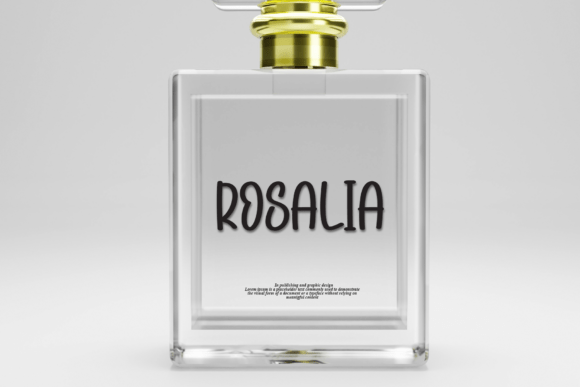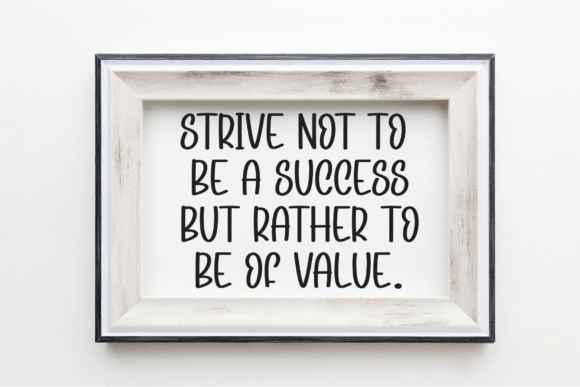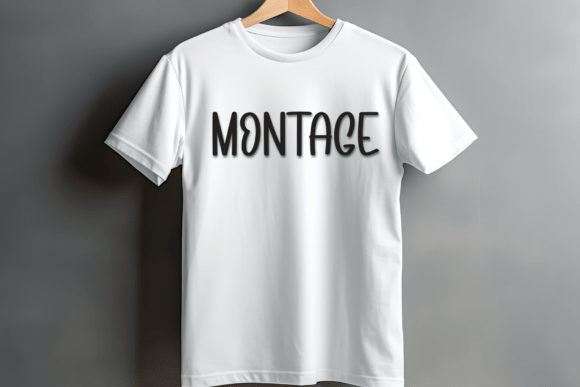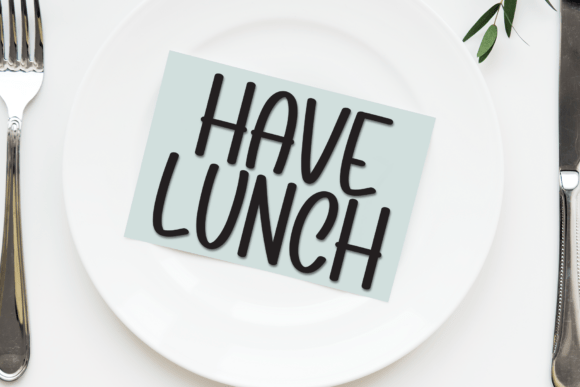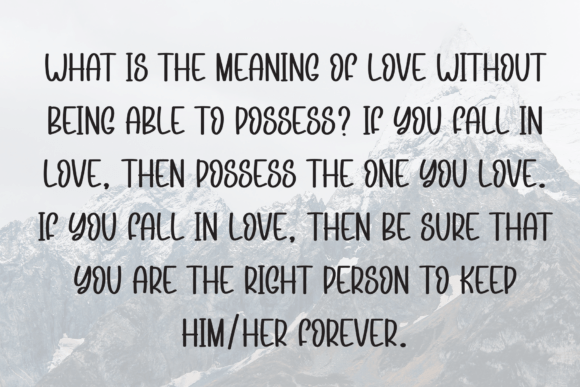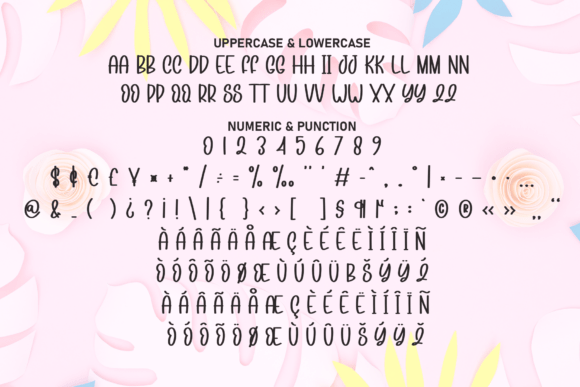
Introduction to Pink Doodle Font
Summer is here, and so are the endless possibilities for outdoor events and gatherings. As a designer, you’re probably searching for the perfect font to capture the carefree spirit of the season. You’ve got your design software open, and you’re browsing through fonts, but nothing seems to match the vibe you’re going for. That’s when you stumble upon the Pink Doodle Font – a cheerful typeface that screams summer fun and relaxation.
With its clean lines and easygoing feel, the Pink Doodle Font is the perfect addition to any creative project. Whether you’re designing a summer poster, event flyer, or playful branding, this font brings a breezy, laid-back feel that’s sure to captivate your audience. As a valuable design resource, the Pink Doodle Font offers a high-quality solution for designers looking to add some personality to their work.
Key Features of Pink Doodle Font
- High-quality, hand-drawn design ideal for creative projects and artistic endeavors
- Transparent background, making it easy to layer and customize for various design needs
- Designed with a playful, whimsical style, perfect for adding a touch of personality to any creative project
- Features a high-resolution design, suitable for use in print and digital applications
- Perfect for use in various design contexts, including illustrations, graphics, and typography
Honest Review: Pink Doodle Font
I recently stumbled upon the Pink Doodle Font and I must say it’s been a delightful addition to my design arsenal. This charming font is perfect for creating whimsical and playful designs.
- ✨ Unique style: The Pink Doodle Font has a distinct, hand-drawn feel that sets it apart from other fonts.
- ✨ High-quality design: The font is well-designed and looks great at various sizes and resolutions.
- ⚠️ Limited font weights: The font only comes in a few weights, which might limit its versatility in certain designs.
- ⚠️ No transparent background option: The font’s background is opaque, which might not be ideal for designs requiring a transparent background.
Overall, I’m impressed with the Pink Doodle Font. It’s a great addition to any designer’s toolkit, especially for creative projects that require a playful touch. While it may have some limitations, its unique style and high-quality design make it a valuable resource for designers.
The Pink Doodle Font is perfect for a variety of creative projects, including invitations, social media graphics, and educational materials. Its high-quality design and transparent background feature make it a versatile and reliable design resource.